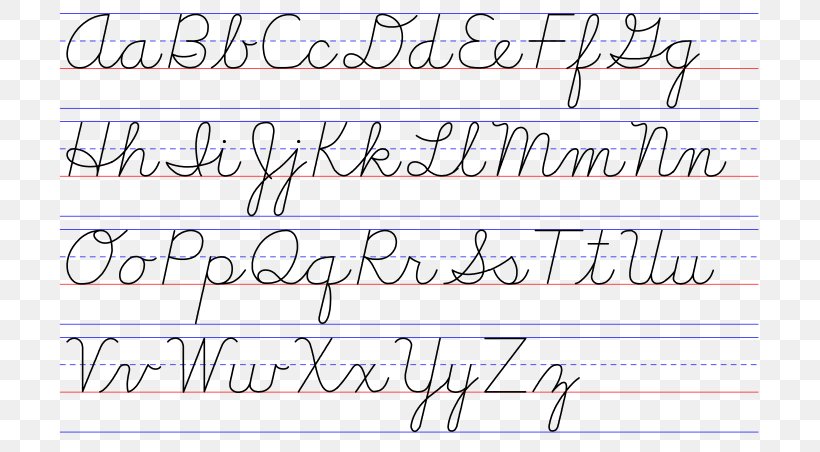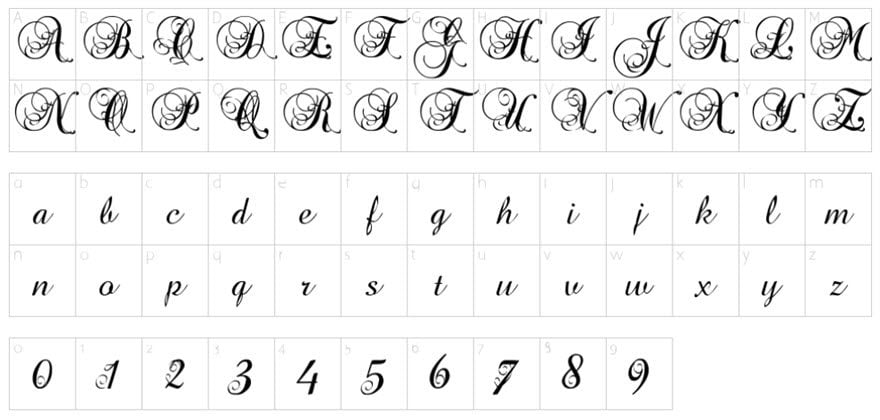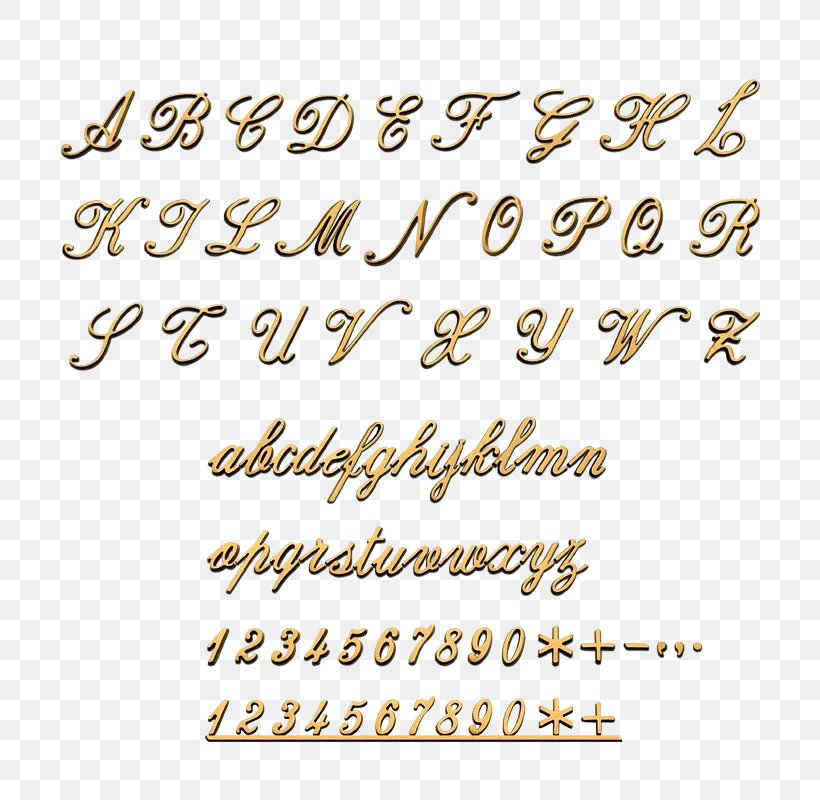
We have 1190 free Script Cursive Fonts to offer for direct downloading 1001 Fonts is your favorite site for free fonts since 2001. Cursive letters as the name suggests are writing letters in curved forms.
Cursive fonts are generally the script fonts with joining letters.
Letter fonts cursive. The handwritten fonts are considered as the Cursive fonts and differ depending on. Cursive fonts mimic the style of human penmanship where the letters flow together. We have 804 free Handwritten Cursive Fonts to offer for direct downloading 1001 Fonts is your favorite site for free fonts since 2001.
This method of scriptwriting was first used by Platt Rogers Spencer. We have been using the Cursive fonts for a long time and it continues to be one of the most widely used font types. Cursive writing is a fun and interesting set of shapes let me know if you know of other random choices of alphabets.
Looking for Cricut Cursive Handwriting fonts. The most common cursive letter font material is metal. Heres the alphabet for the cursive script letters.
Letters may be joined or unjoined. We have 645 free Calligraphy Cursive Fonts to offer for direct downloading 1001 Fonts is your favorite site for free fonts since 2001. The Cursive fonts are the best options for creative projects logo designs and any kind of writing that needs an attractive feel.
Cursive is a style of handwriting that dates back to the 16th Century designed to make writing quicker by hand and more pleasing to look at. Cursive Font Handwriting Text Generator. It is comprised of two distinct subfamilies.
Cursive font is a type of font which was first used back in the fifth century. In the Arabic Latin and Cyrillic alphabets many or all letters in a word are connected sometimes making a word one single complex stroke. In todays context cursive or script fonts are basically fonts that look like they were hand-drawn.
The most popular color. The cursive handwriting style is functional and intended to be used for everyday writing. Fancy letter capital calligraphy cursive designs font letters fonts tattoo alphabet tattoos monogram latin outfits work casual winter lettering inspiring.
Cursive fonts simply emulate cursive handwriting in which letters are usually connected in a slanted and flowing manner. Cursive also known as joint writing or running writing or handwriting is any style of penmanship in which the symbols of the language are written in a conjoined andor flowing manner generally for the purpose of making writing faster. In such page we additionally have number of images out there.
Cursive Text Generator๐ฌ๐ธ๐น๐ ๐ถ๐๐น ๐น๐ช๐ผ๐ฝ๐ฎ Cursive Text Generator. Click to find the best 26 free fonts in the Cricut Cursive Handwriting style. 9463 search results for tattoo cursive letter k.
Some of the fonts are quite close to the normal alphabet - for example the cursive ones the monospace ones the bold and italic ones. There are 2379 cursive letter font for sale on Etsy and they cost 390 on average. However for different languages cursive writing can mean differently for example for eastern Asian languages like Chinese cursive writing focuses more on the formation and connectedness of strokes within an individual character while for Latin Cyrillic and Arabic languages cursive.